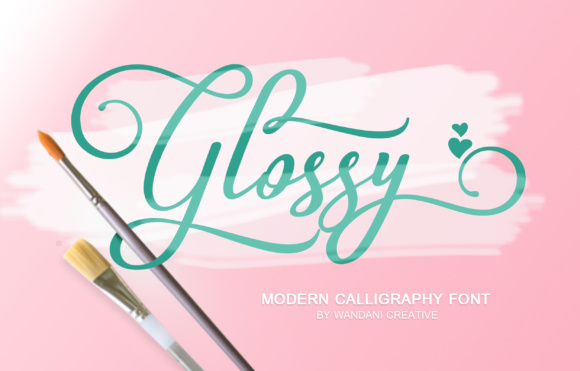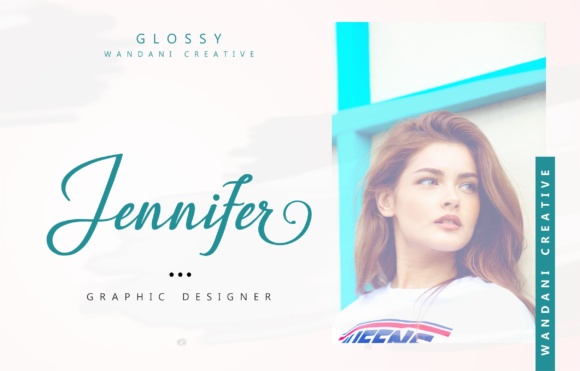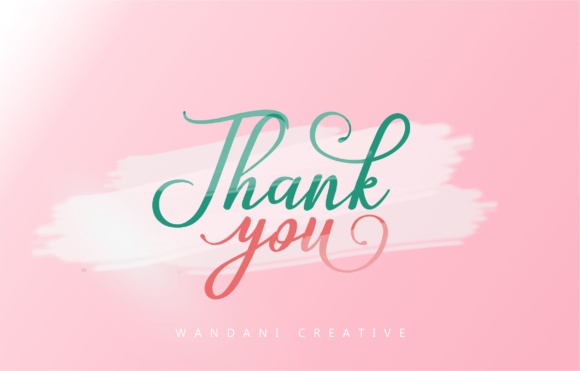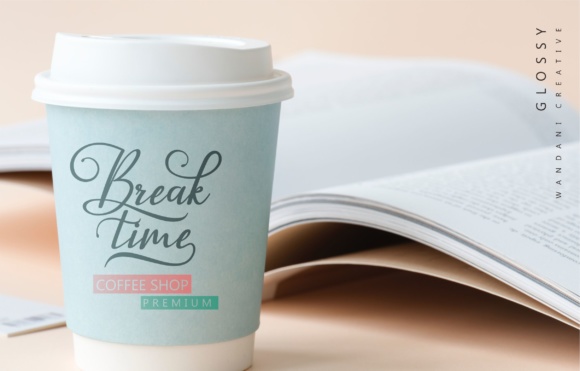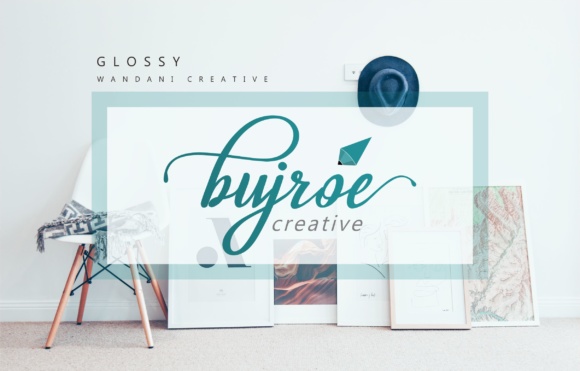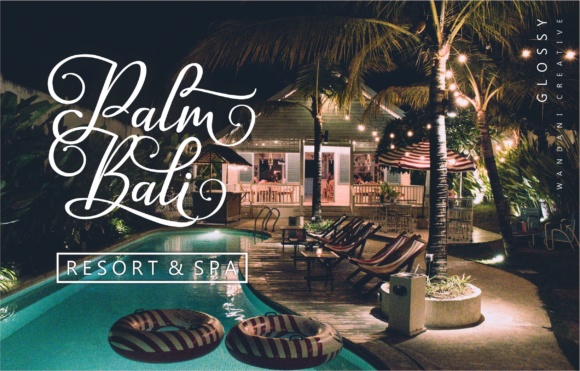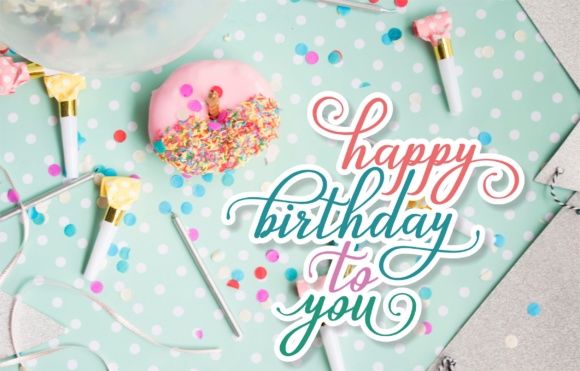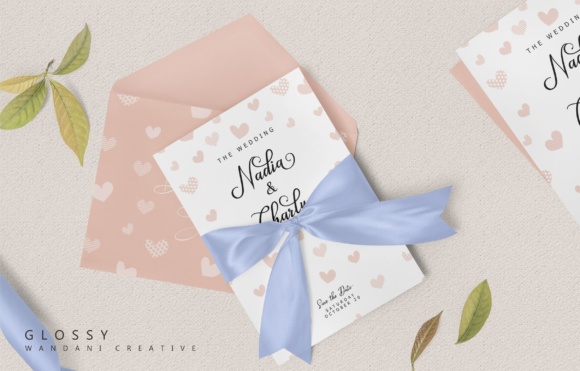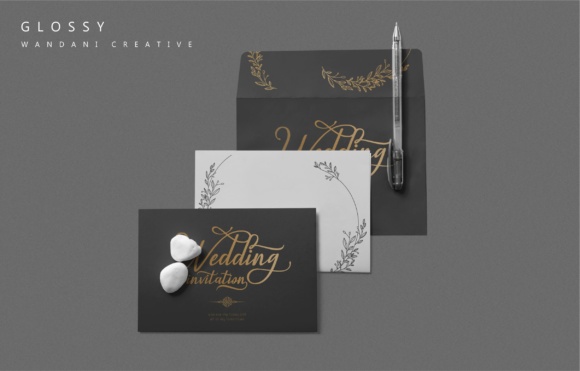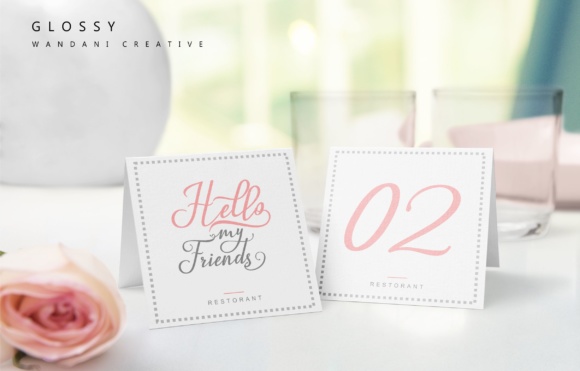
Glossy Font
About Glossy Font
The Glossy is a beautiful script font. It’s both elegant and charming in look and design. It includes lots of characters and ligatures, so you can create the most stellar looking calligraphy designs simply and easily.